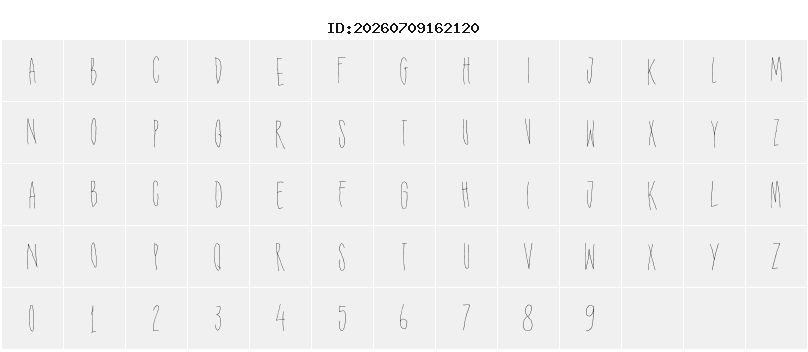
DK Shaken Not Stirred Preview
• Font Name: DK Shaken Not Stirred
• Designer: David Kerkhoff
About DK Shaken Not Stirred.otf
DK Shaken Not Stirred.otf is a modern, elegant sans-serif font designed for ultimate readability and visual harmony. Perfect for branding, headlines, web design, and print materials.